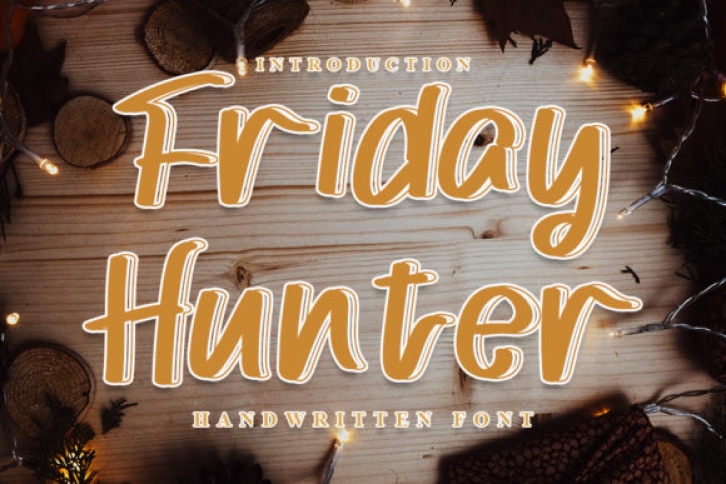
Friday Hunter is a relaxed and joyful handwritten font. This gentle font will look gorgeous on a variety of design ideas. It will add a neat and trendy touch to each of your projects!